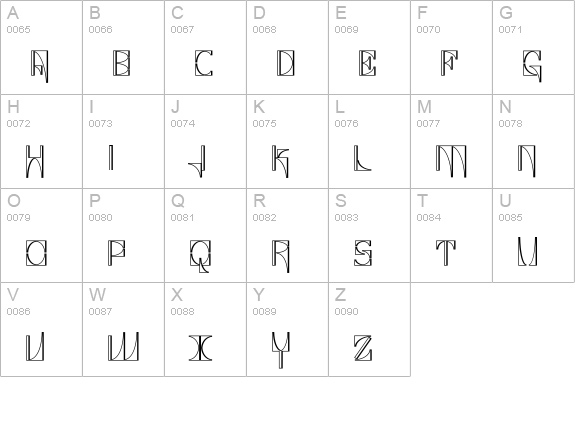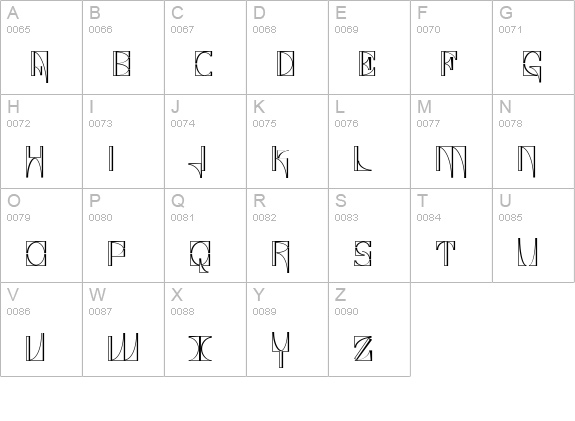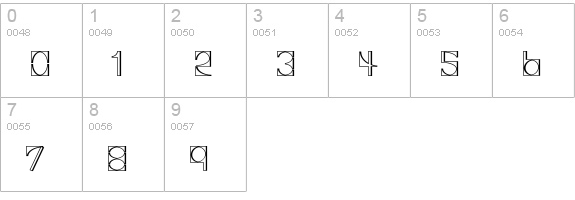
Glaukous - Industrious Font Details
Glaukous - Industrious is a modern and versatile font that exudes a sense of hard work and dedication. Its clean lines and sharp edges make it perfect for conveying a professional and industrious vibe in any design project. The font embodies a strong work ethic and a commitment to excellence, making it ideal for conveying a sense of reliability and trustworthiness. The best part about Glaukous - Industrious font is that it is completely free to download at FontsMarket.com. This means that you can easily access this powerful and impactful font without any cost, allowing you to enhance your designs with a touch of industriousness without breaking the bank. Take advantage of this opportunity to elevate your projects with the industrious spirit of Glaukous - Industrious font, available for free at FontsMarket.com.